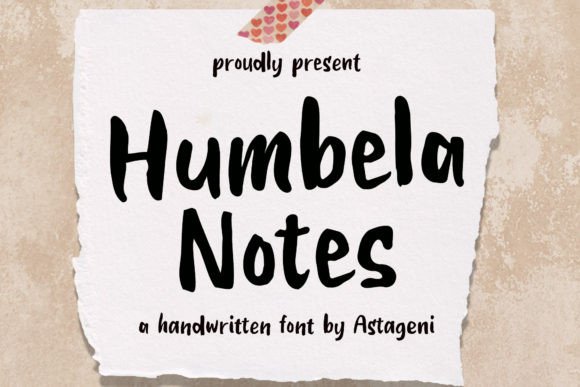
Introducing Humbela Notes Font, the perfect choice for anyone seeking to add a touch of enchantment and personality to their written communication. Created by Flamde Studio, this unique script font offers three distinct alternatives for every letter, ensuring that each sentence you compose is infused with delightful randomness.
Gone are the days of uniform and monotonous typography. Humbela Notes Font faithfully replicates the nuanced and natural variations found in handwritten text, bringing an authentic and organic quality to your words. Imagine the joy of seeing your sentences come alive with a whimsical charm that captivates readers and sparks their imagination.
Whether you're designing invitations, crafting heartfelt greeting cards, or creating eye-catching social media graphics, Humbela Notes Font will effortlessly elevate your work to new heights. Its distinct and charming character will instantly breathe life into your projects, making them stand out from the crowd.
Unlock the possibilities of authentic hand-drawn typography with our one-of-a-kind font. Let your creativity soar as you explore the vast range of creative applications that Humbela Notes Font offers. Its versatility knows no bounds, allowing you to effortlessly convey emotions, tell stories, and engage your audience in a way that leaves a lasting impression.
With Humbela Notes Font, you'll have access to a complete set of all capital letter characters, numerals, and a wide range of punctuation. The font also boasts multilingual support, enabling you to reach a global audience and communicate your message effectively.
Embrace the power of Humbela Notes Font and unlock a world of creative possibilities. Say goodbye to mundane and predictable typography and let your words dance across the page with the elegance and whimsy that only this font can provide.
It's time to make a statement, to captivate your audience, and to leave a lasting impression. Choose Humbela Notes Font and let your creativity shine.